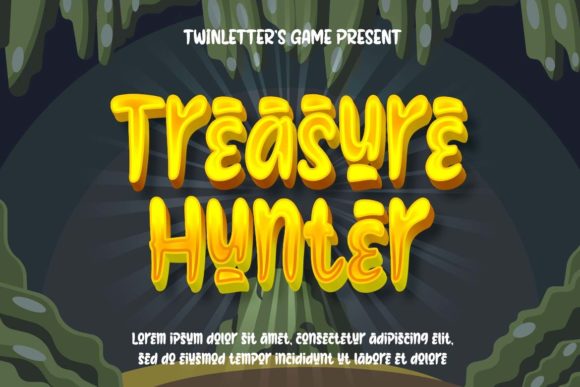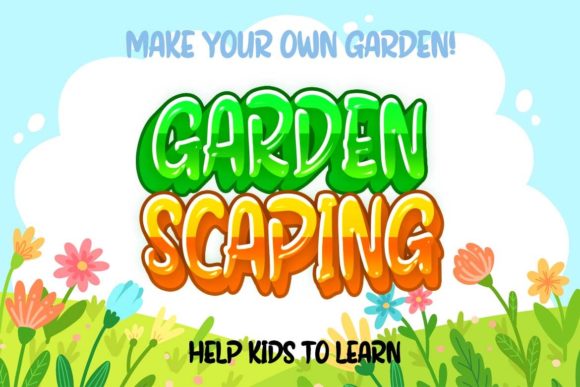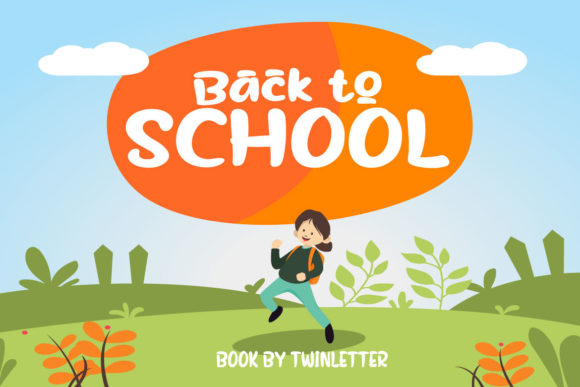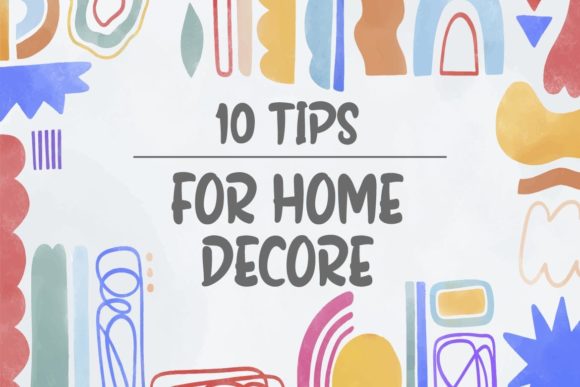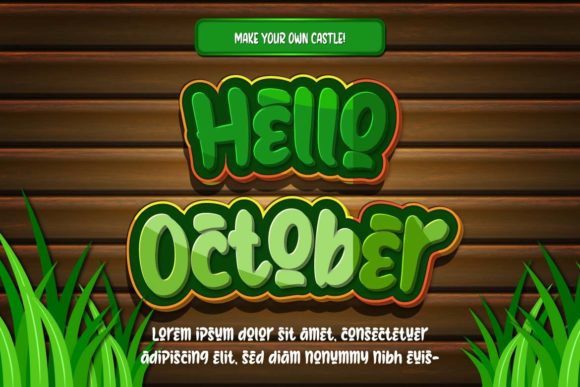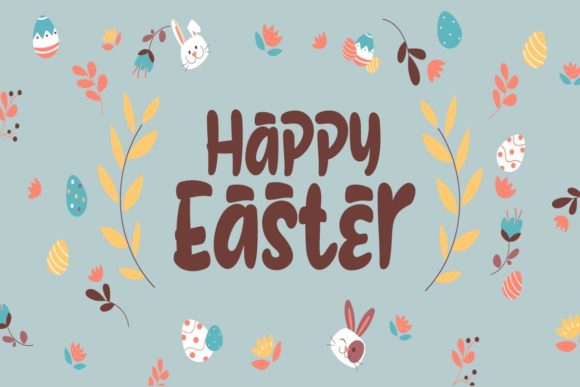
Geyalu Font: Add a Touch of Joy to Your Designs
Are you looking for a font that can add a playful and fun touch to your designs? Look no further than Geyalu Font. This display font is perfect for anyone who wants to create cartoon-related designs, children’s games, quotes, titles, brand names, book covers, posters, or any other creation that requires a dash of joy. In this article, we’ll take a closer look at Geyalu Font and explore its features, benefits, and uses.
What is Geyalu Font?
Geyalu Font is a playful and fun display font that is designed to bring a smile to your face. Its unique and quirky style makes it perfect for designs that require a touch of whimsy and humor. The font is highly legible and can be used for a wide range of design projects, from children’s books to posters and flyers.
Key Features of Geyalu Font
- Playful and Fun: Geyalu Font is designed to be playful and fun, making it perfect for designs that require a lighthearted touch.
- Highly Legible: The font is highly legible, even at small sizes, making it perfect for use in a wide range of design projects.
- Quirky Style: Geyalu Font has a unique and quirky style that sets it apart from other fonts.
- Versatile: The font can be used for a wide range of design projects, from children’s books to posters and flyers.
Benefits of Using Geyalu Font
There are many benefits to using Geyalu Font in your designs. Here are just a few:
- Adds a Touch of Joy: Geyalu Font is designed to bring a smile to your face, making it perfect for designs that require a touch of joy.
- Grabs Attention: The font’s playful and quirky style makes it perfect for grabbing attention and standing out from the crowd.
- Easy to Read: Geyalu Font is highly legible, making it easy for readers to quickly and easily understand your message.
- Versatile: The font can be used for a wide range of design projects, making it a great addition to any designer’s toolkit.
Uses for Geyalu Font
Geyalu Font is a versatile font that can be used for a wide range of design projects. Here are just a few ideas:
- Children’s Books: Geyalu Font is perfect for use in children’s books, where its playful and fun style can help to engage young readers.
- Posters and Flyers: The font’s quirky style makes it perfect for use in posters and flyers, where it can help to grab attention and stand out from the crowd.
- Cartoon-Related Designs: Geyalu Font is a great choice for cartoon-related designs, where its playful and fun style can help to bring characters to life.
- Quotes and Titles: The font’s highly legible style makes it perfect for use in quotes and titles, where it can help to add a touch of joy and whimsy.
Tips for Using Geyalu Font
Here are a few tips for using Geyalu Font in your designs:
- Use it Sparingly: Geyalu Font is a bold and playful font, so it’s best to use it sparingly to avoid overwhelming your design.
- Pair it with Other Fonts: The font pairs well with other fonts, so don’t be afraid to experiment with different combinations.
- Experiment with Colors: Geyalu Font looks great in a wide range of colors, so don’t be afraid to experiment and find the perfect color for your design.
Geyalu Font is a playful and fun display font that is perfect for adding a touch of joy to your designs. Its unique and quirky style makes it perfect for a wide range of design projects, from children’s books to posters and flyers. With its highly legible style and versatile uses, Geyalu Font is a great addition to any designer’s toolkit. So why not give it a try and see how it can add a touch of joy to your designs?